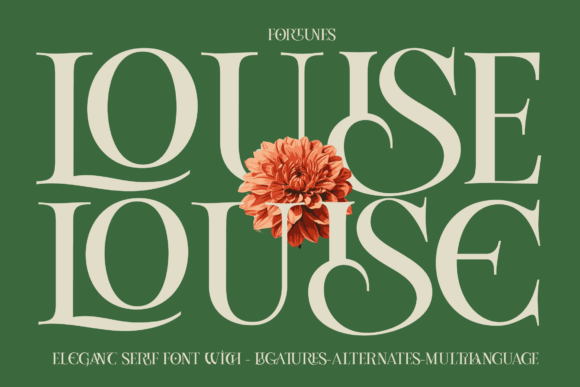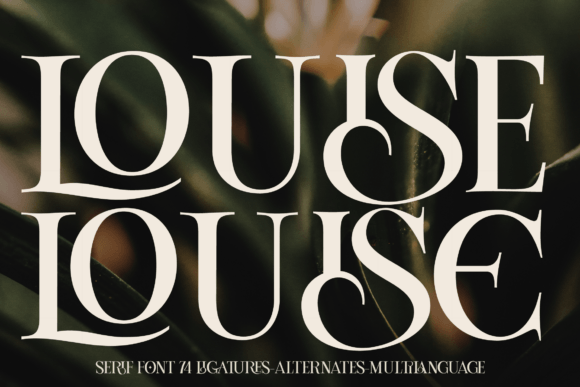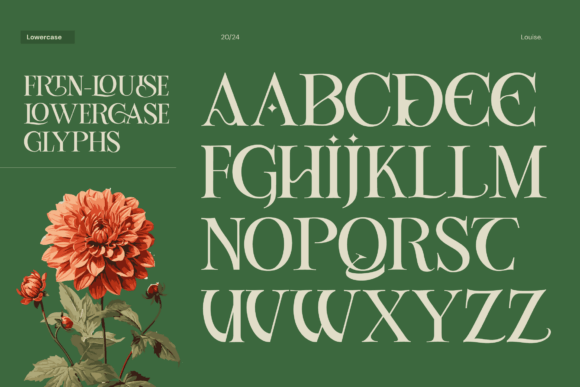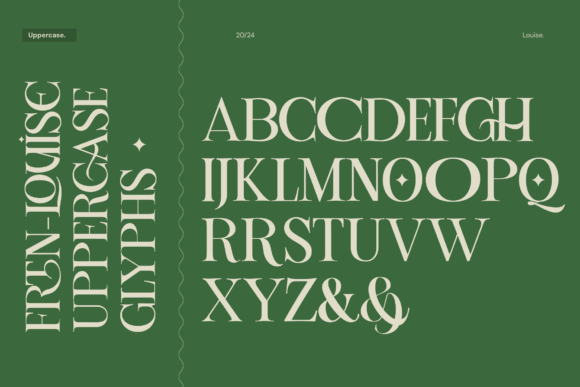
Louise Font: Elegant Serif Typography for High-End Branding
About the Louise Font
Add a touch of class to your work with the Louise Font, a truly exceptional typeface. Louise is a serif elegant typeface that exudes sophistication and timeless charm. Its refined letterforms feature delicate, graceful serifs, adding a touch of luxury and class. Perfect for formal occasions, high-end branding, or editorial designs, it combines readability with aesthetic appeal. Balanced proportions, thin strokes, and subtle curves give it a regal presence, making it a favorite for evoking elegance and tradition.
Louise excels in headline treatments, logo design, and short-form text within brochures or invitations. Its elegant nature makes it ideal for luxury brands, high-end products, and projects requiring a sophisticated aesthetic. Avoid using Louise for body text or lengthy paragraphs; its delicate strokes can hinder readability at smaller sizes.
Pairing Louise with a clean sans-serif like Helvetica Neue for body copy creates a balanced and professional contrast. For a more playful yet refined look, consider pairing it with a script font like Playfair Display for accents. Geometric sans-serifs, such as Futura, provide a modern counterpoint to Louise’s classic elegance.
The overall personality of Louise is sophisticated and refined, conveying a sense of timeless elegance and understated luxury. It is best suited for brands emphasizing quality, heritage, or exclusivity.